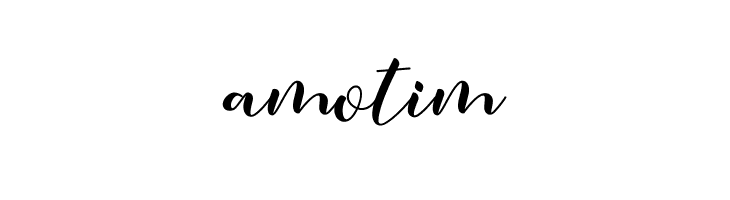
( Food on the Wall - www.foodonthewall.com )
A playful and artistic font with eclectic curves and bold strokes.
( Food on the Wall - www.foodonthewall.com )
A clean, modern font with a slight vintage touch, featuring consistent stroke width and versatile characters.
( Fontyou - www.fontyou.com )
A modern, geometric font with bold uppercase and consistent lowercase characters.
( Fontyou - www.fontyou.com )
A hand-drawn, medieval-inspired font with dynamic strokes and organic shapes.
( Fontsphere - fontsphere.com/ )
A bold, rounded font with a playful and modern geometric style.
( Fontsgood - Ade Meiada )
An elegant, flowing script font with a sophisticated, handwritten style.
( Fontsgood - Ade Meiada )
A sophisticated serif font with high contrast and elegant details.
( Fontscafe.com - fontscafe.com/ )
A bold, retro-style font with lined characters and a vintage flair.
( Fontscafe.com - fontscafe.com/ )
A bold, cursive font with interconnected characters and a classic yet modern script style.
( Fontscafe.com - fontscafe.com/ )
A decorative script font with elegant swirls and high contrast strokes.
( Fontscafe.com - fontscafe.com/ )
A bold, shaded serif font with a vintage, three-dimensional style.
( Fontscafe.com - fontscafe.com/ )
A decorative, heart-themed font with romantic symbols and phrases.
( Fontscafe.com - fontscafe.com/ )
A stylish and elegant handwritten script font with fluid, graceful strokes.
( Fontscafe.com - fontscafe.com/ )
A bold, slab serif font with a vintage, collegiate style.
( Fontscafe.com - fontscafe.com/ )
A bold, vintage serif font with decorative elements and shadow effects.
A bold, expressive handwritten font with high contrast and artistic flair.
( Fontscafe.com - fontscafe.com/ )
A decorative, hand-drawn font with elegant swirls and a chalk-like texture.
( Fontscafe.com - fontscafe.com/ )
A bold, three-dimensional vintage-style font with strong, impactful characters.
( Fontscafe.com - fontscafe.com/ )
A playful and dynamic font with bold, flowing characters and a whimsical style.
( Fontry West - James Stirling - www.thefontry.com/ )
A bold, distressed font with a grunge aesthetic.
( Fontry - M.G. Adkins - www.thefontry.com/ )
A bold slab serif font with a strong, geometric style.
( Fontry - M.G. Adkins - www.thefontry.com/ )
A bold, chiseled font with a three-dimensional shadow effect.
( Fontry - M.G. Adkins - www.thefontry.com/ )
A bold, geometric font with rounded edges and consistent stroke width.
( Fontry - M.G. Adkins - www.thefontry.com/ )
A bold, chiseled font with a three-dimensional effect and strong visual impact.
( Fontry - M.G. Adkins - www.thefontry.com/ )
A bold, geometric font with strong, uniform strokes for impactful design.
( Fontry - M.G. Adkins - www.thefontry.com/ )
A bold, modern font with tall, condensed characters and consistent stroke width.
( Fontry - M.G. Adkins - www.thefontry.com/ )
A bold, modern font with tall, narrow characters and a strong visual impact.
( Fontry - M.G. Adkins - www.thefontry.com/ )
A bold, geometric outline font with a modern, neon-like appearance.
( Fontry - M.G. Adkins - www.thefontry.com/ )
A bold, italicized font with a dynamic and heroic style.
( Fontry - M.G. Adkins - www.thefontry.com/ )
A bold, angular font with a dynamic, italicized style.
( Fontry - M.G. Adkins - www.thefontry.com/ )
A bold, dynamic font with sharp angles and a superhero-inspired style.